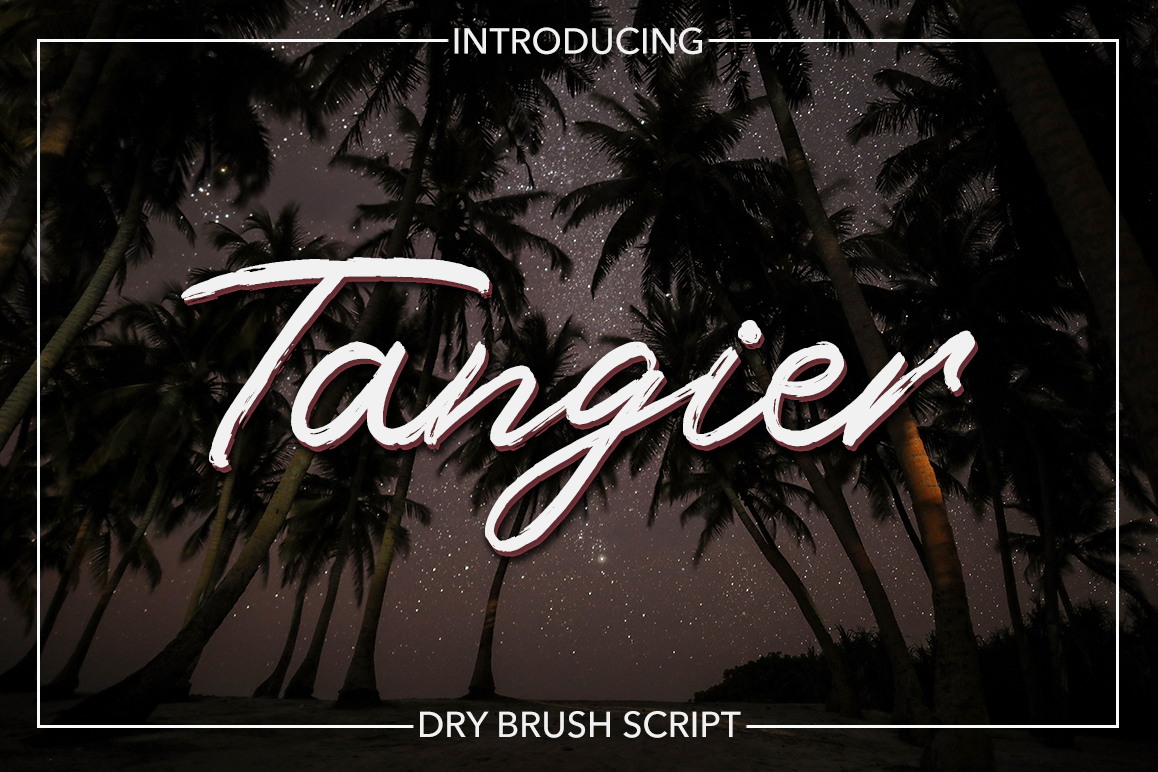
Tangier Script
It's hand written brush script. With this type, you will see a lot of alternative letters and swathes. This font is ideal for branding and decorate your any project.This font are perfect for wedding invitation or your blog. Also with their help, you can create a logo or beautiful frame for your home. Or just use for your small business, book covers, stationery, marketing, magazines and more.